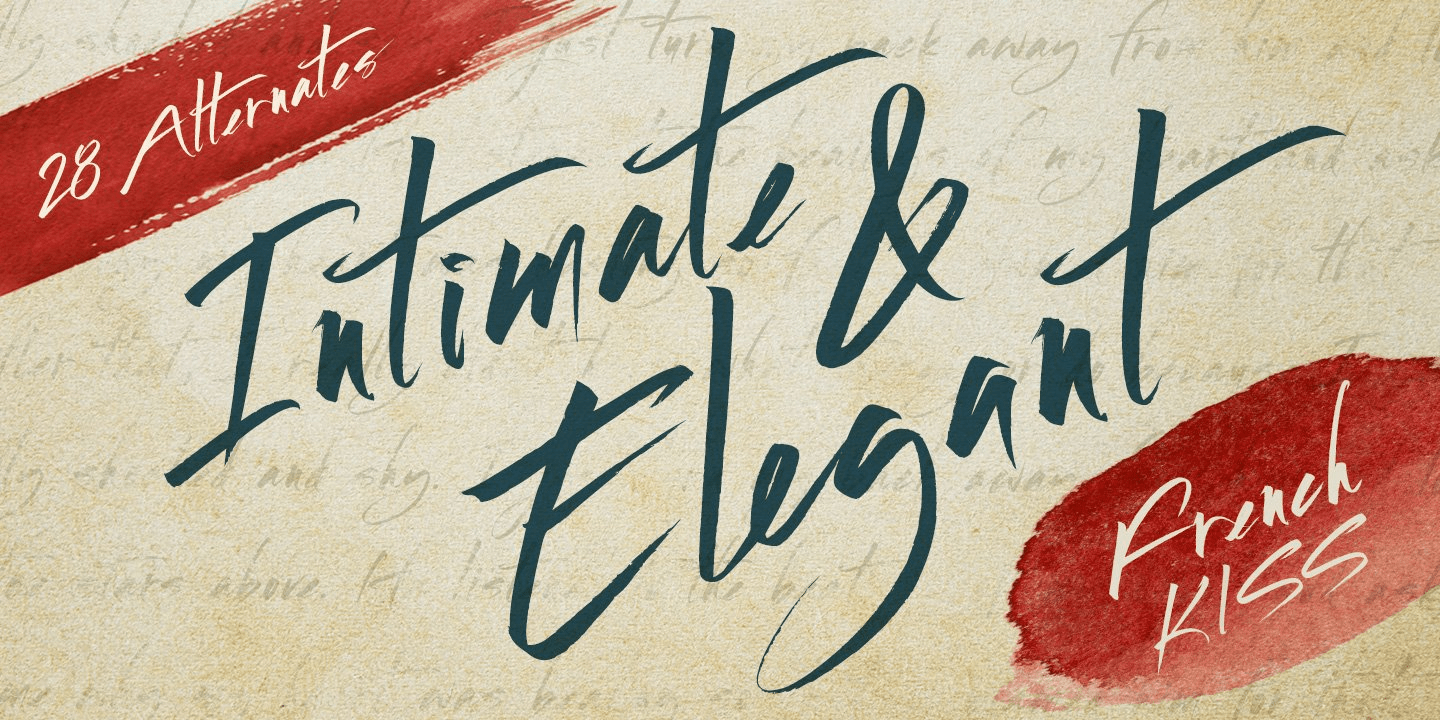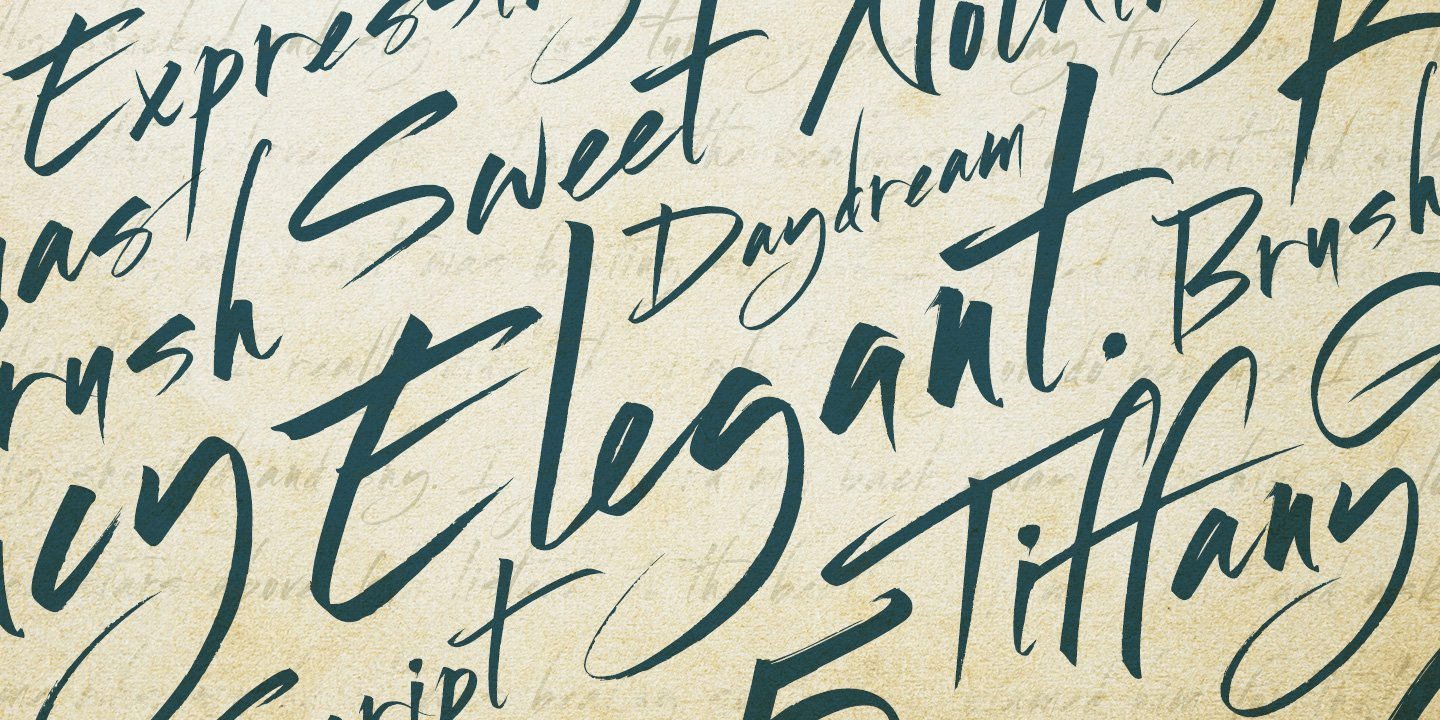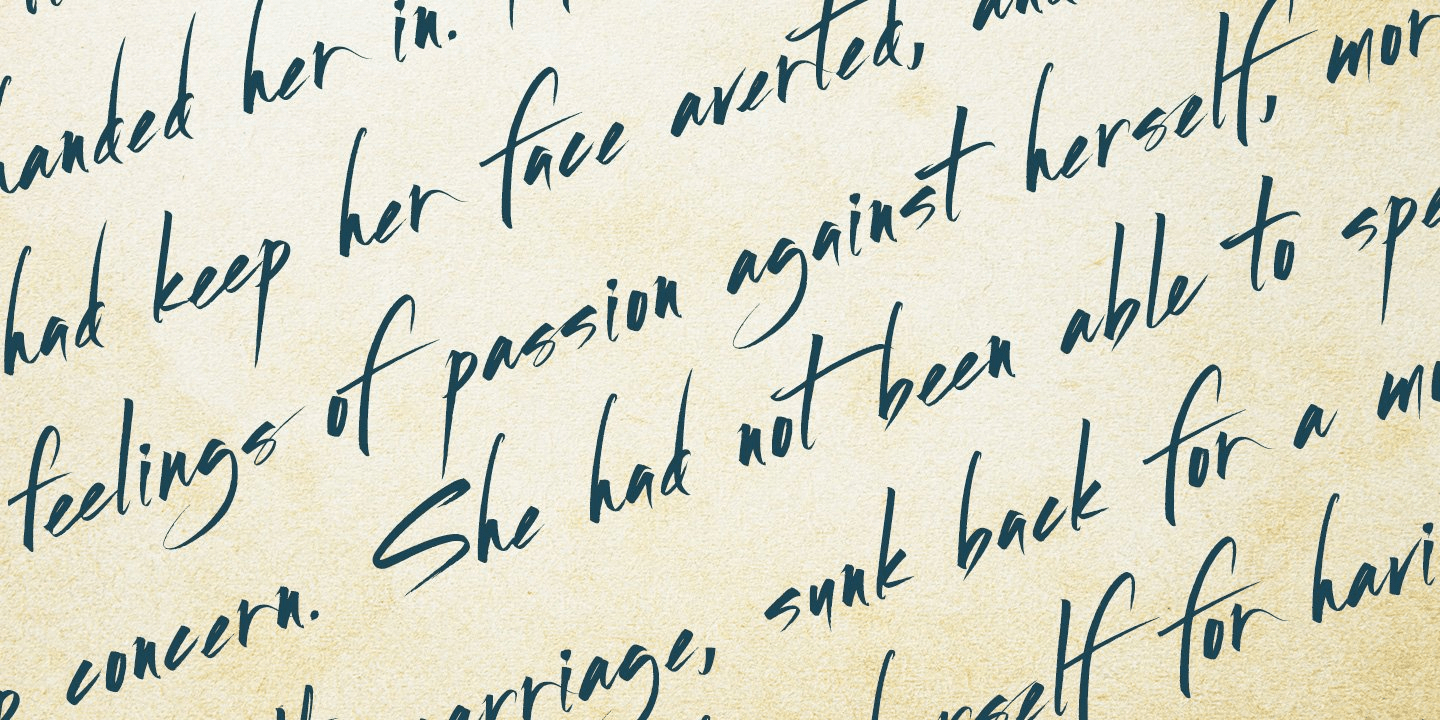
French Kiss
Font Family by Robert Arnow
French Kiss is an expressive brush font that was drawn by hand on paper to ensure that it captured an intimate and personal quality. The texture of the brush has been left in, and can be seen when displayed at large sizes.
French Kiss contains 28 alternates and ligatures for enhanced diversity and legibility.
Additionally, the entire font has been meticulously kerned, letter by letter to ensure a smooth flow, in spite of the expressiveness of the letters.